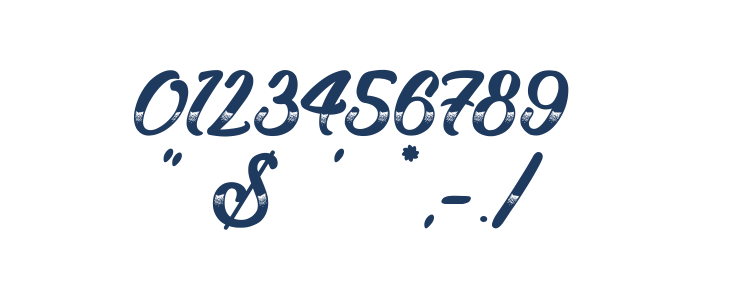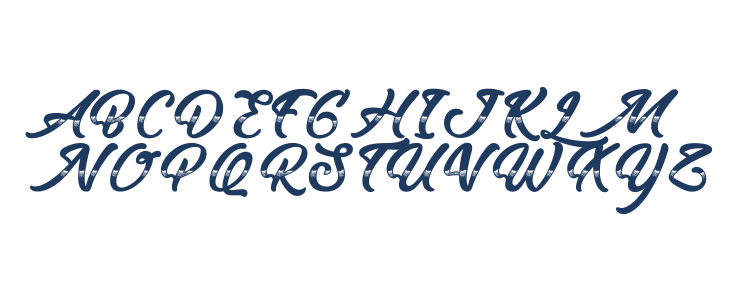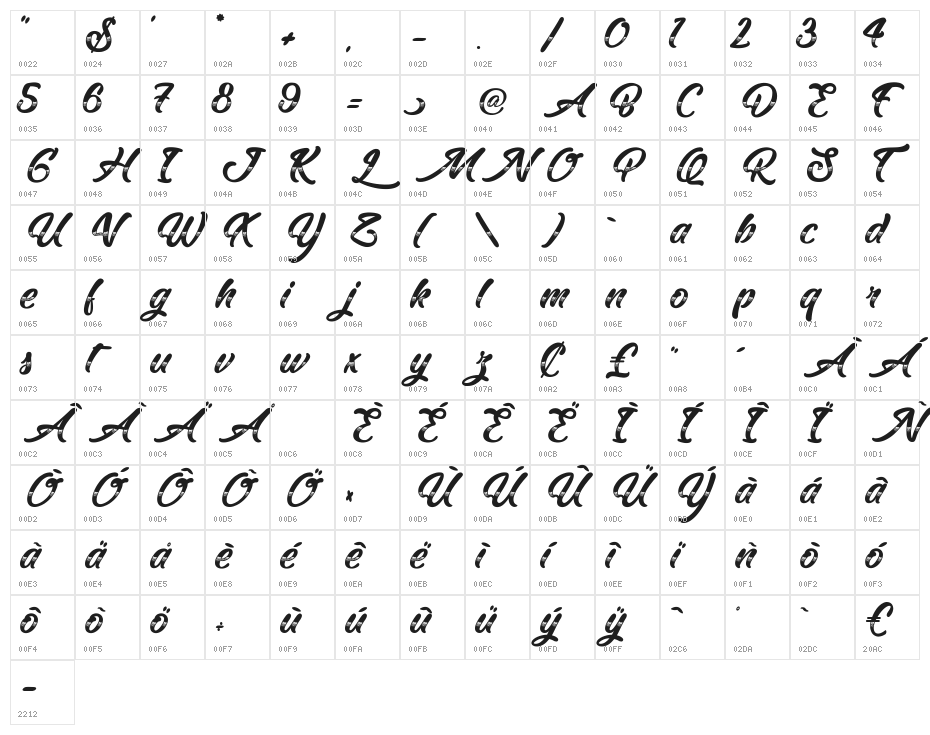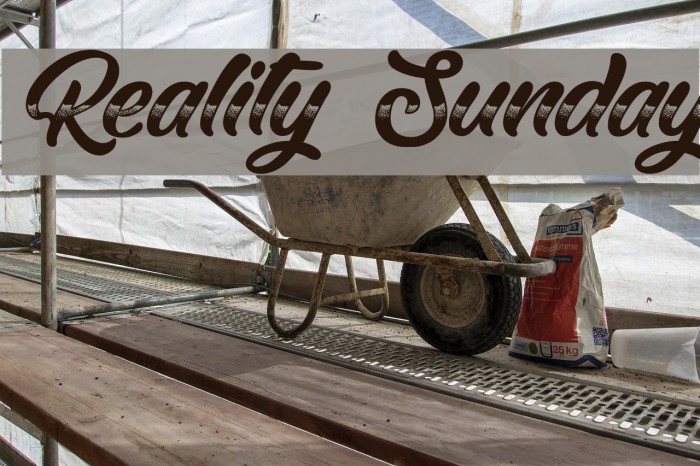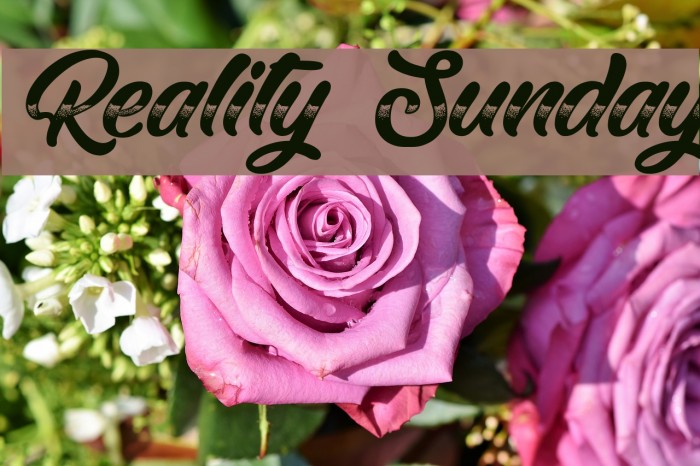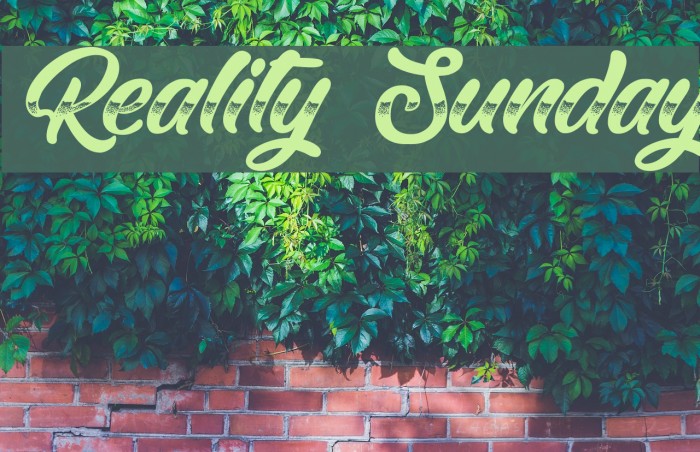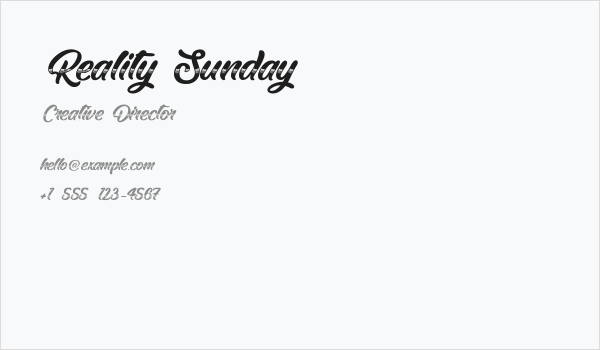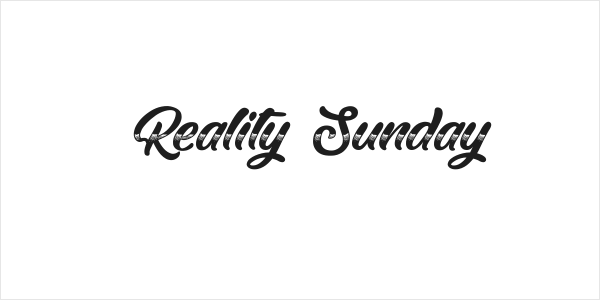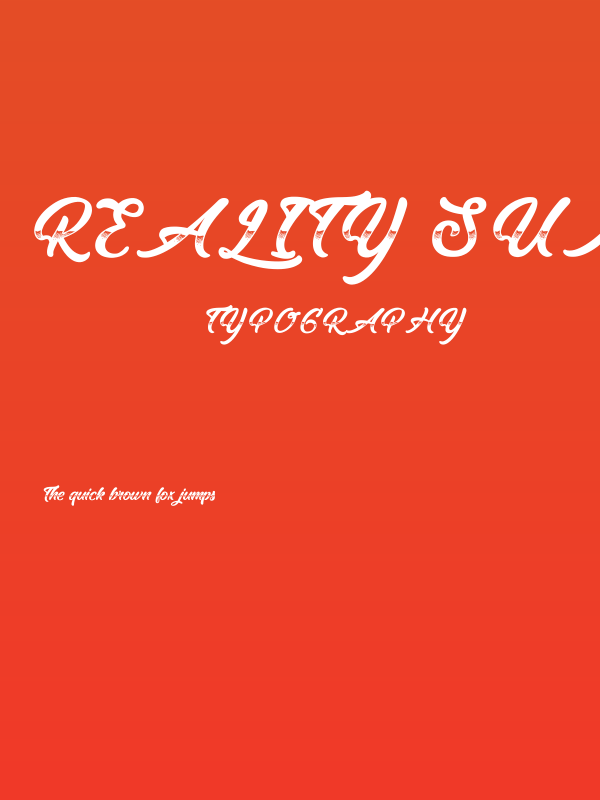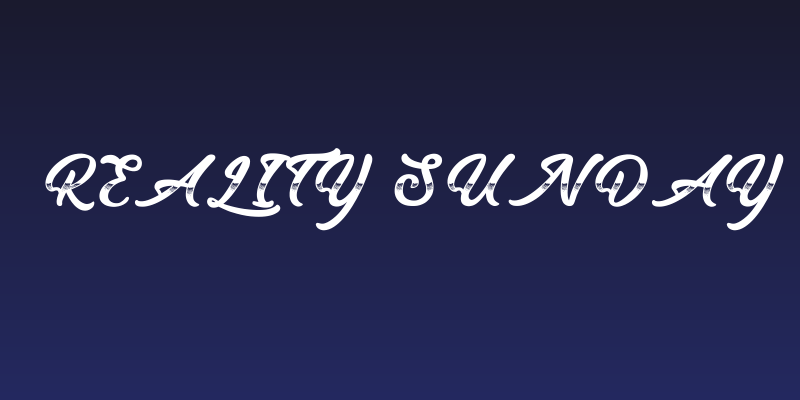
Reality Sunday Font
Reality Sunday Description
This font features a bold, script style with a distinct brush-like texture, giving it a dynamic and artistic appearance. The uppercase letters have a flowing, cursive design, while the lowercase letters maintain a consistent, connected style. The numbers and special characters are crafted with the same brush effect, adding a cohesive look across all characters. The font's playful yet elegant nature makes it suitable for creative projects. Its bold strokes and textured appearance create a strong visual impact, making it ideal for designs that require a touch of flair and personality.
| Use Case | Logos, Headlines, Artistic designs |
| Proposed Projects | Ideal for branding, packaging, invitations, and artistic posters. |